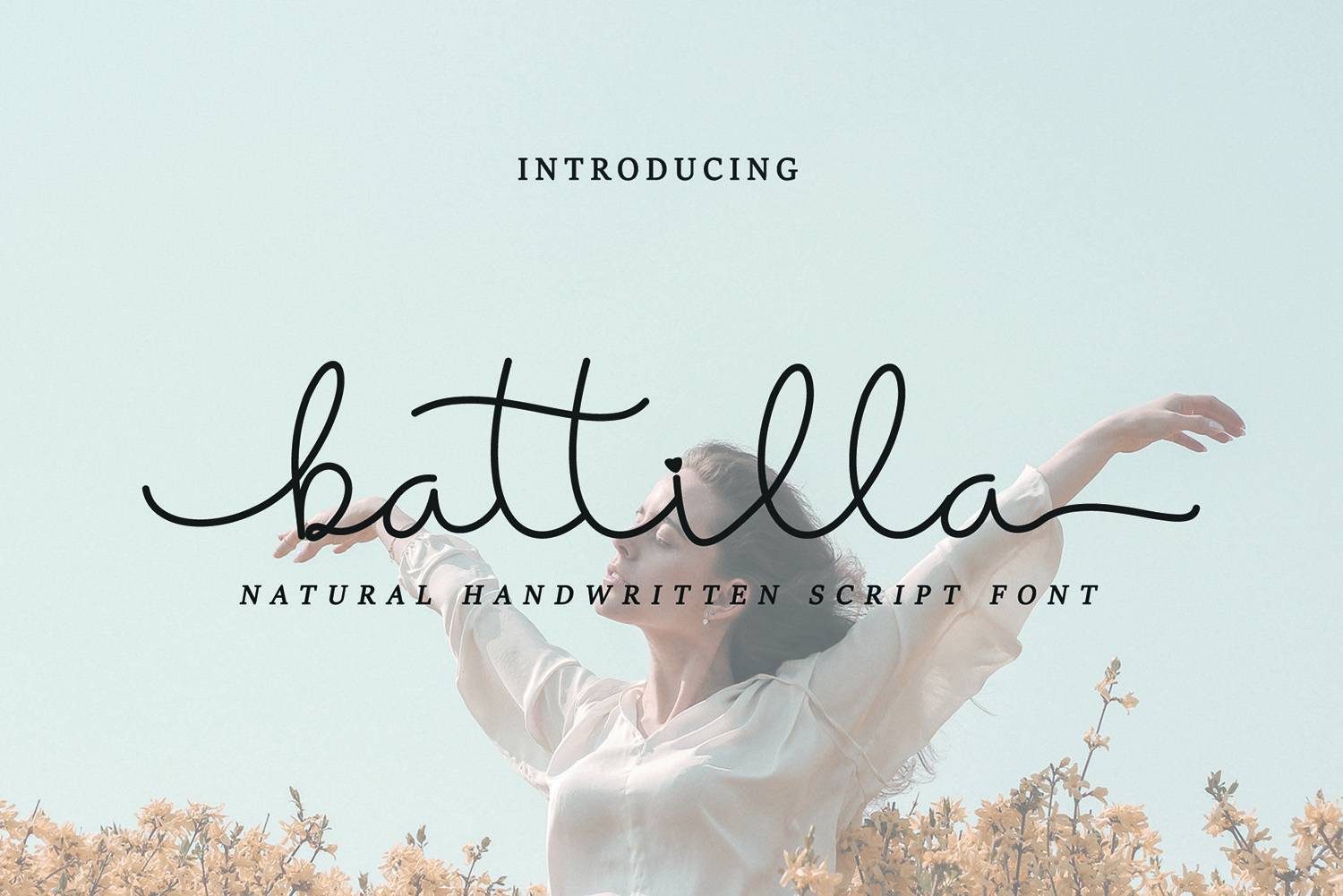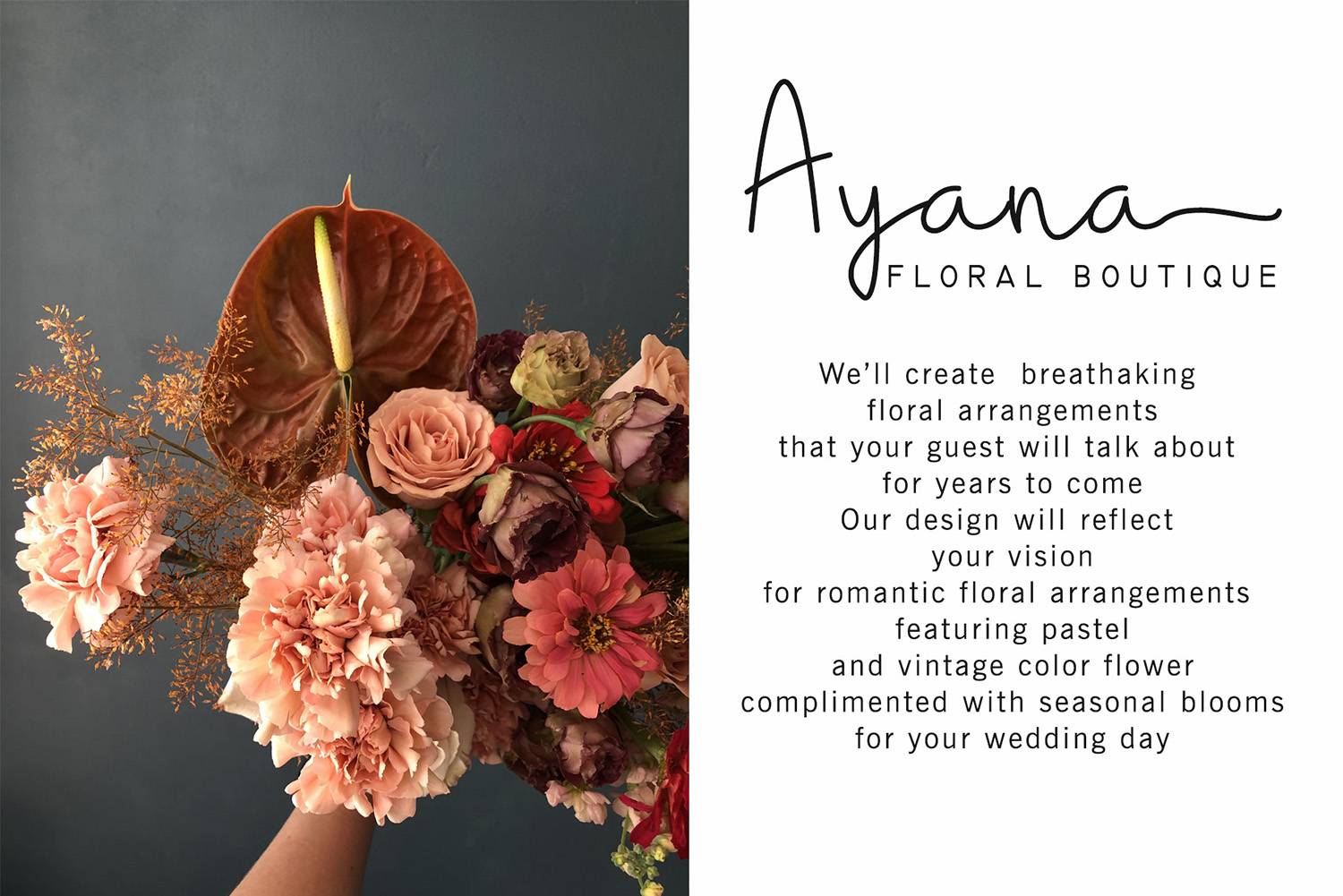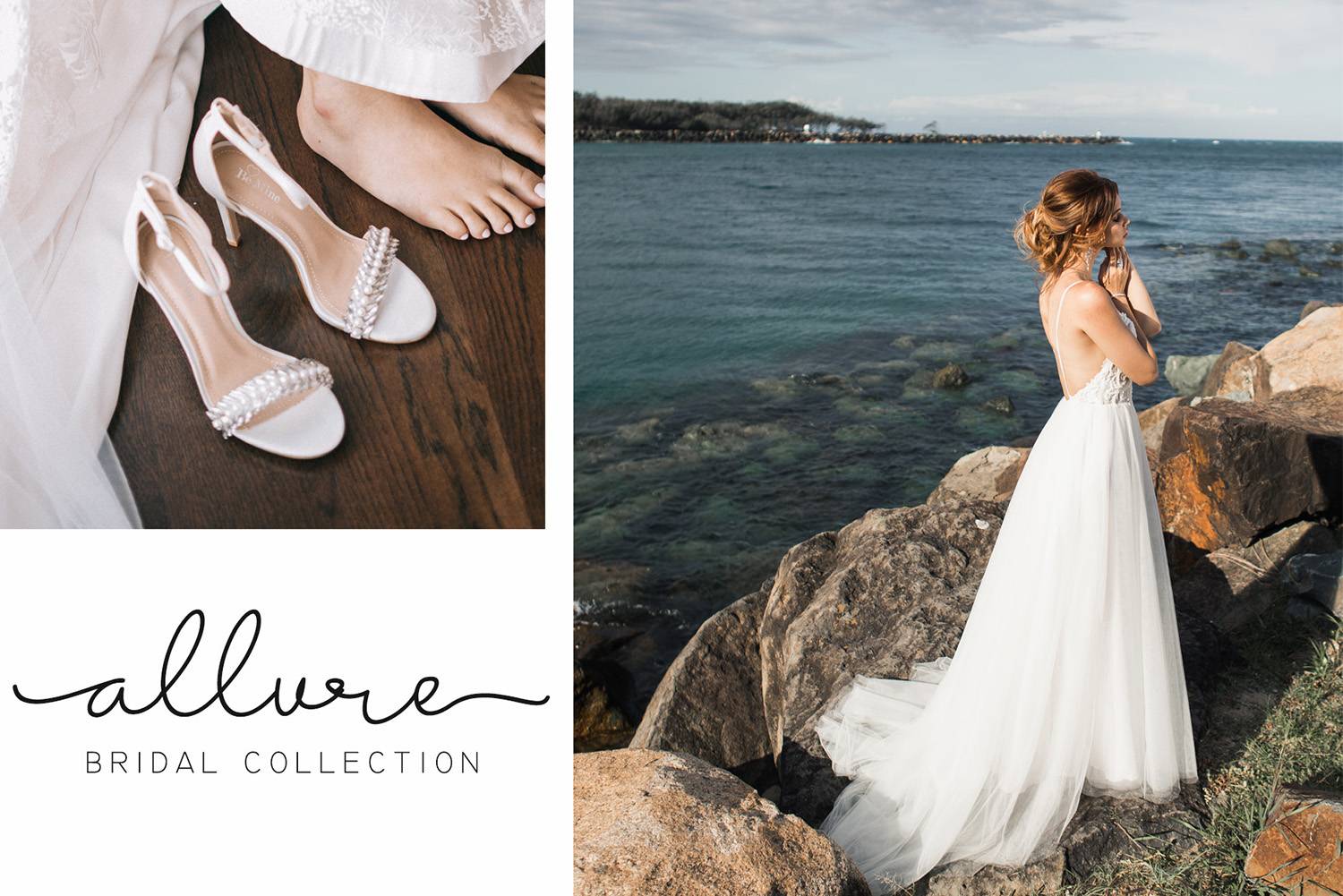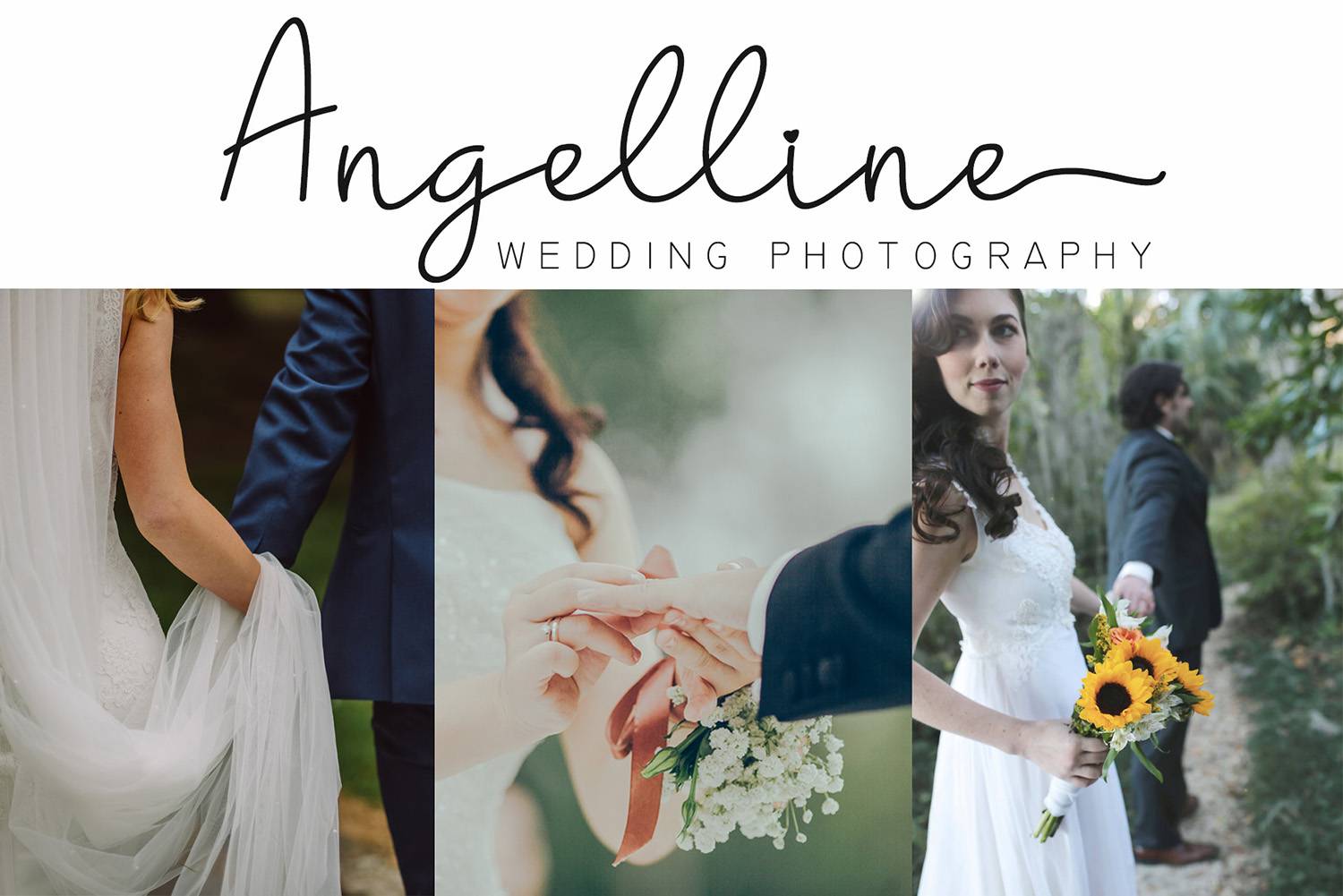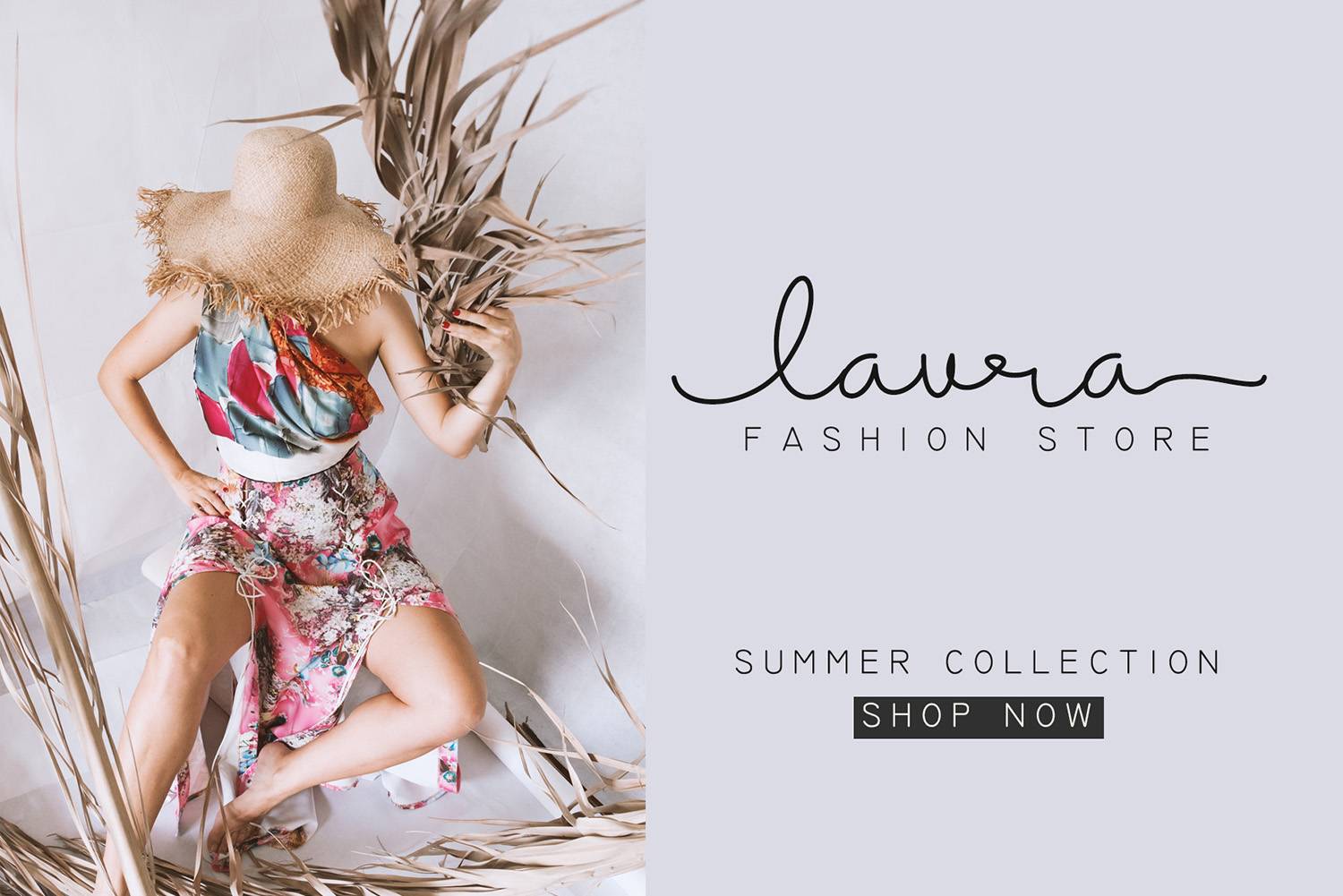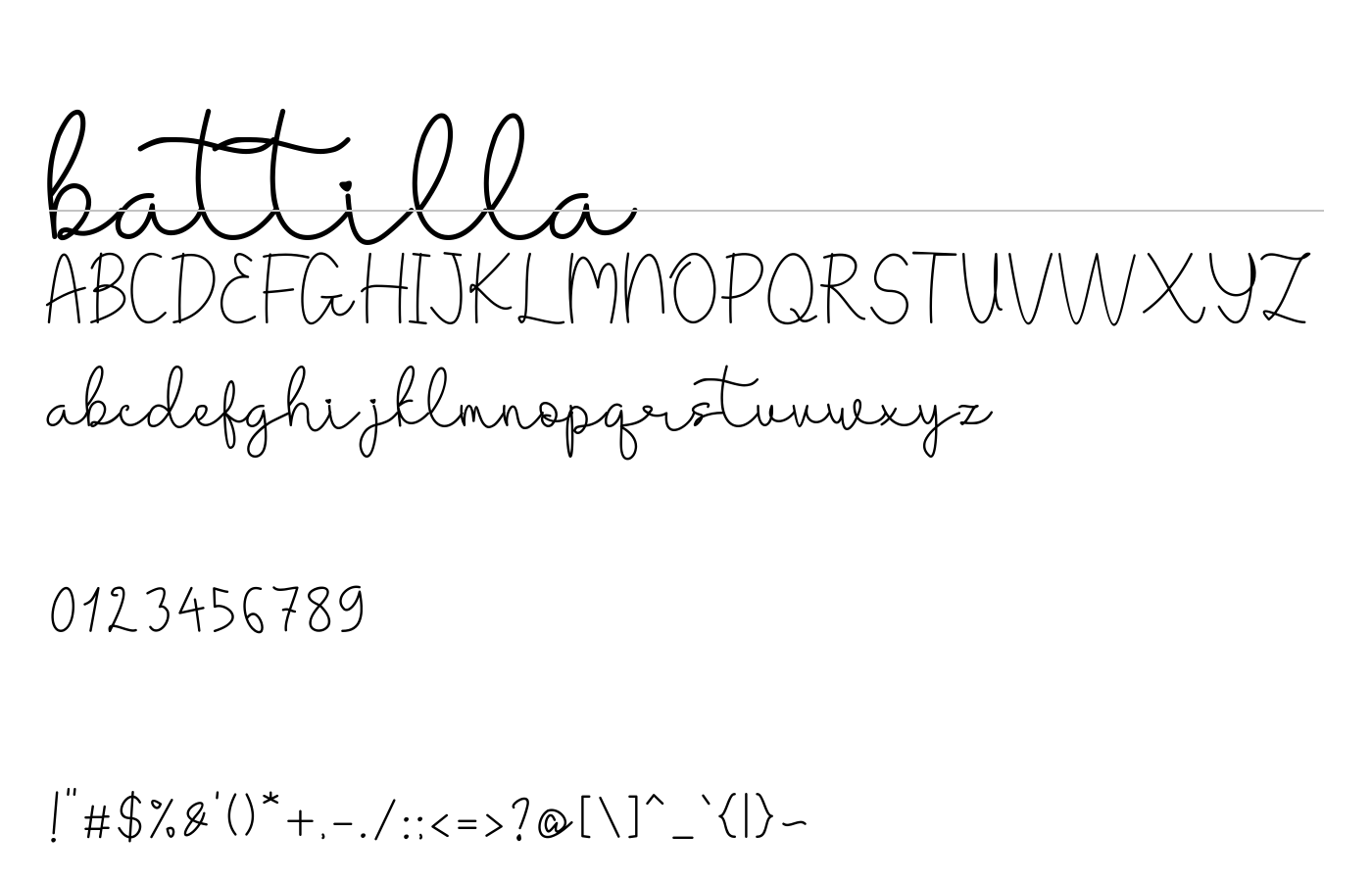
Battilla is a delicate, handwritten script font that combines a casual, playful charm with an elegant, airy feel. Featuring tall, slender letterforms with subtle loops and a light, consistent stroke, it brings a personal, friendly touch well suited for invitations, branding, and creative projects that seek warmth and approachability. Its unique, slightly quirky character shapes make it perfect for adding a handcrafted, stylish vibe to designs while maintaining readability.
Battilla Font
About Battilla Font
| Font family | Battilla Font |
| Designer | Nasruni Fajarita |